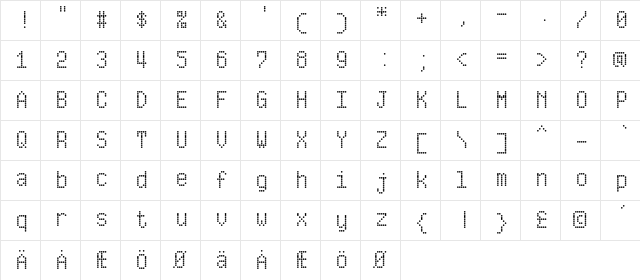
DM-80 Light
Design Context for DM-80 Typeface
DM-80 is a composed and adaptable typeface that performs quietly and consistently across a wide range of design contexts. The delicate stroke weight brings airiness and refinement to layouts.